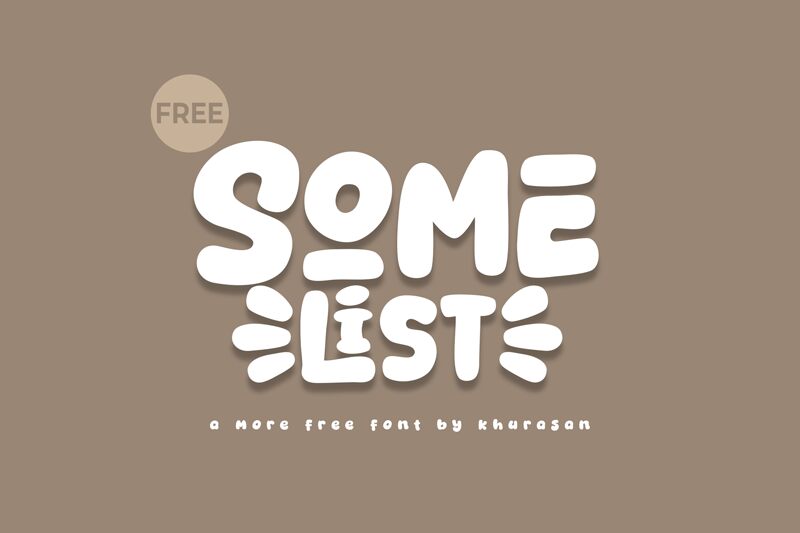
Somelist font family by Khurasan™ presents a charming and playful set of cartoon-inspired letters ready to entertain both designers and readers. The font family in the collection is dotted with embellishments and features a lovely combination of thick and thin lines that display its characters distinctively. Somelist is the little details artists are missing in their invitation designs for parties and small gatherings, but it can also be used for more informal tone projects.